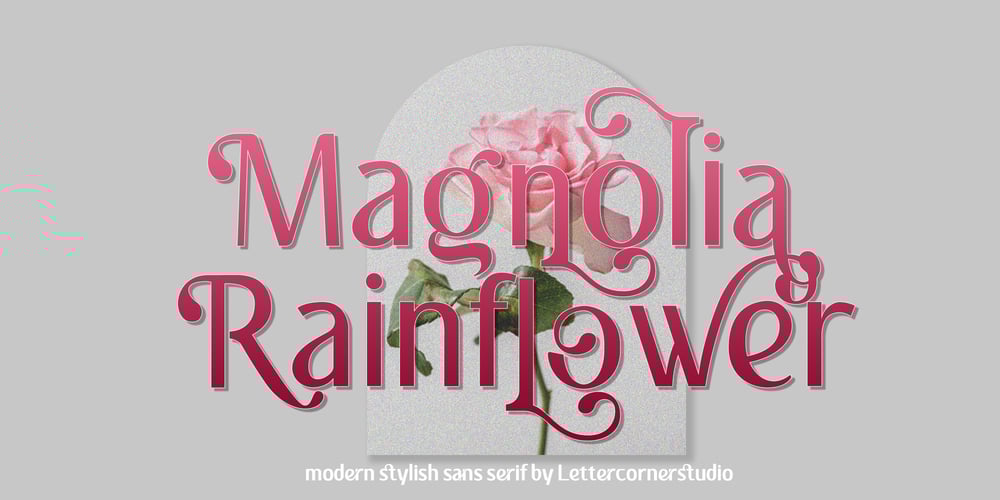
Magnolia Rainflower Font Family was designed by Muhammad Afif Ersya and published by Mevstory Studio. Magnolia Rainflower contains 1 styles and family package options. Magnolia Rainflower FontThis modern serif typeface features serif. The name of this font is taken from one type of tulip. Perfect for gorgeous logos & titles, Magnolia Rainflower will pair beautifully with many fonts and work well with whatever project you’re working on. A full set of punctuation and numerals Some instructions consist of NOTE about using alternative style fonts and glyphs after you download it Include Alternate, Swash & stylistic set Typeface. That’s it! If you have any questions at all, feel free to pop me a private message, I’m always more than happy to help you along :)Happy creating!